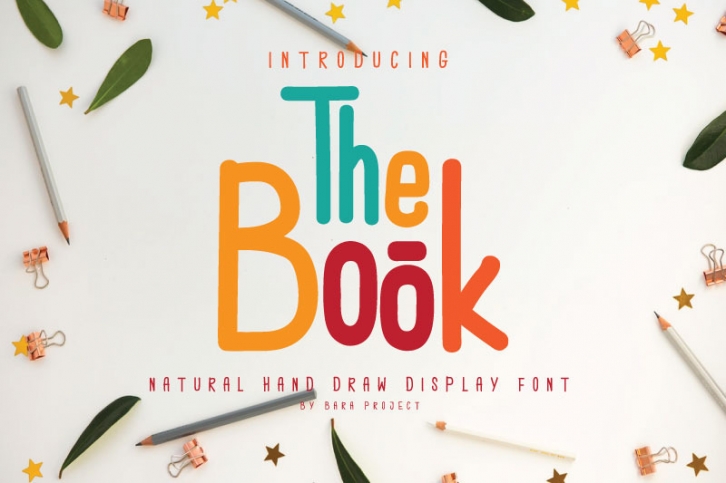
Presenting The Font Book-Handwritten in style with natural flow and style. The Book Font is perfect for branding projects, logos, comics, social media posts, advertisements, product packaging, product design, labels, photography, watermarks, stationery, and any project that requires handwriting tastes.